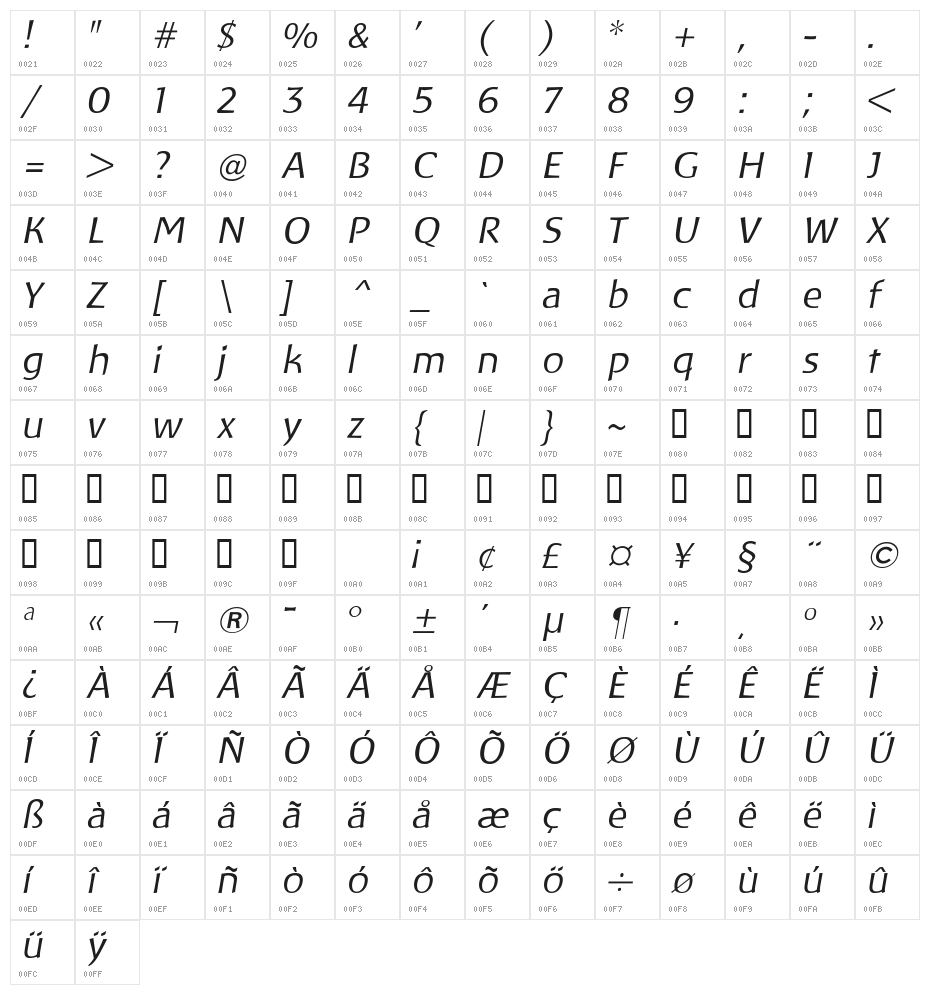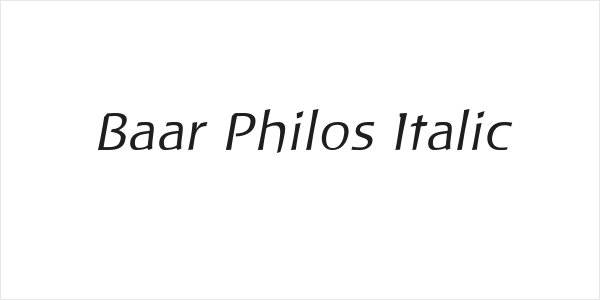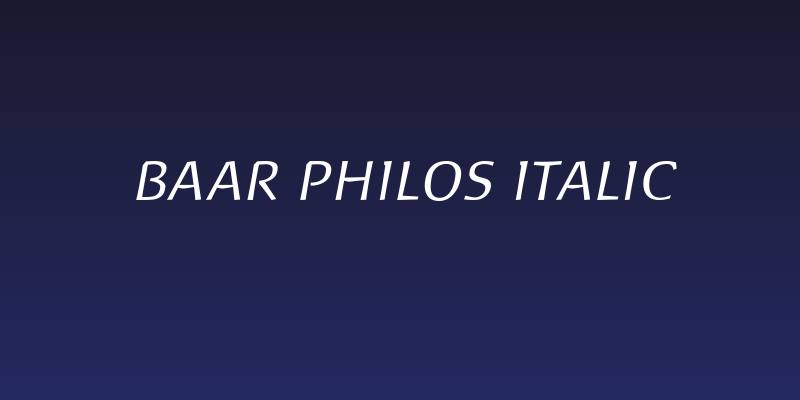
Baar Philos Italic Font
Baar Philos Italic Description
This font features a sleek and modern italic style with a slight slant, giving it a dynamic and elegant appearance. The characters are well-proportioned, with smooth curves and clean lines that enhance readability. The uppercase letters are bold and commanding, while the lowercase letters maintain a consistent flow, making it suitable for both formal and informal contexts. The numerals are distinct and clear, ensuring easy legibility. Special characters are thoughtfully designed to match the overall aesthetic, providing a cohesive look across all text elements.
| Proposed Projects | Ideal for branding, editorial design, advertising, and any project requiring a sophisticated and modern touch. |